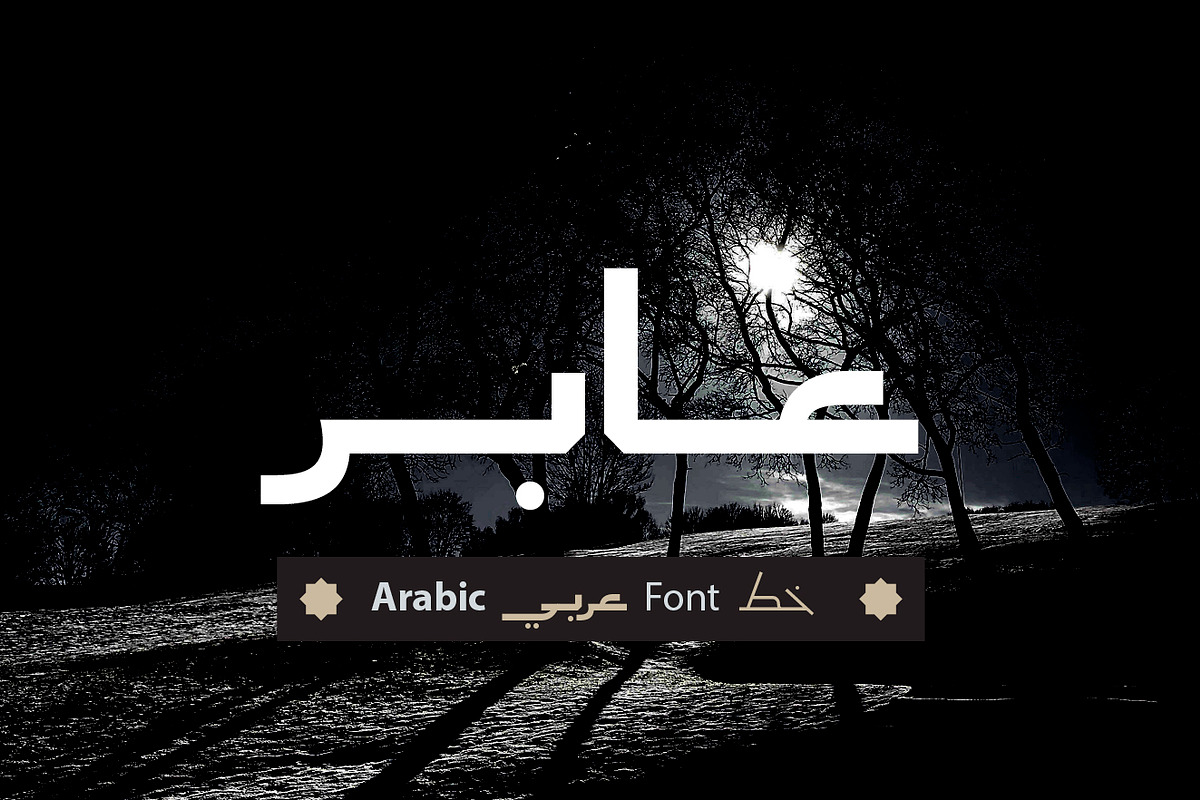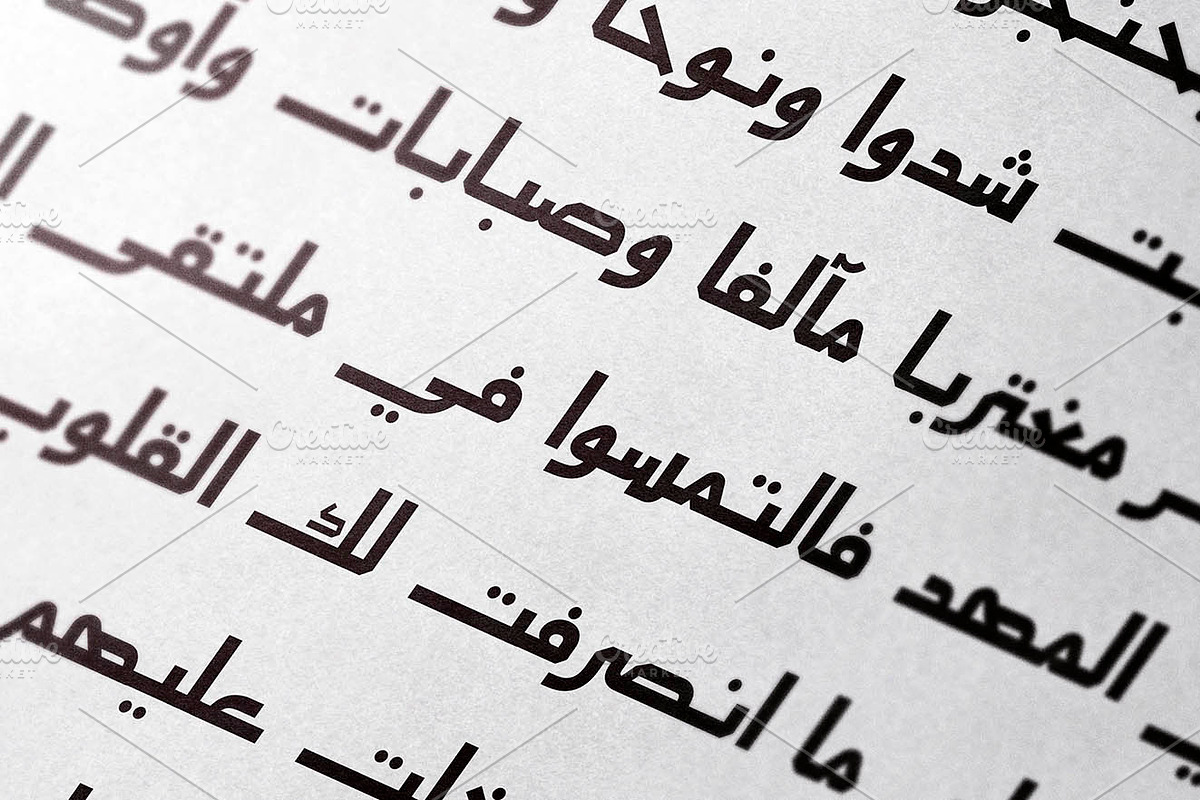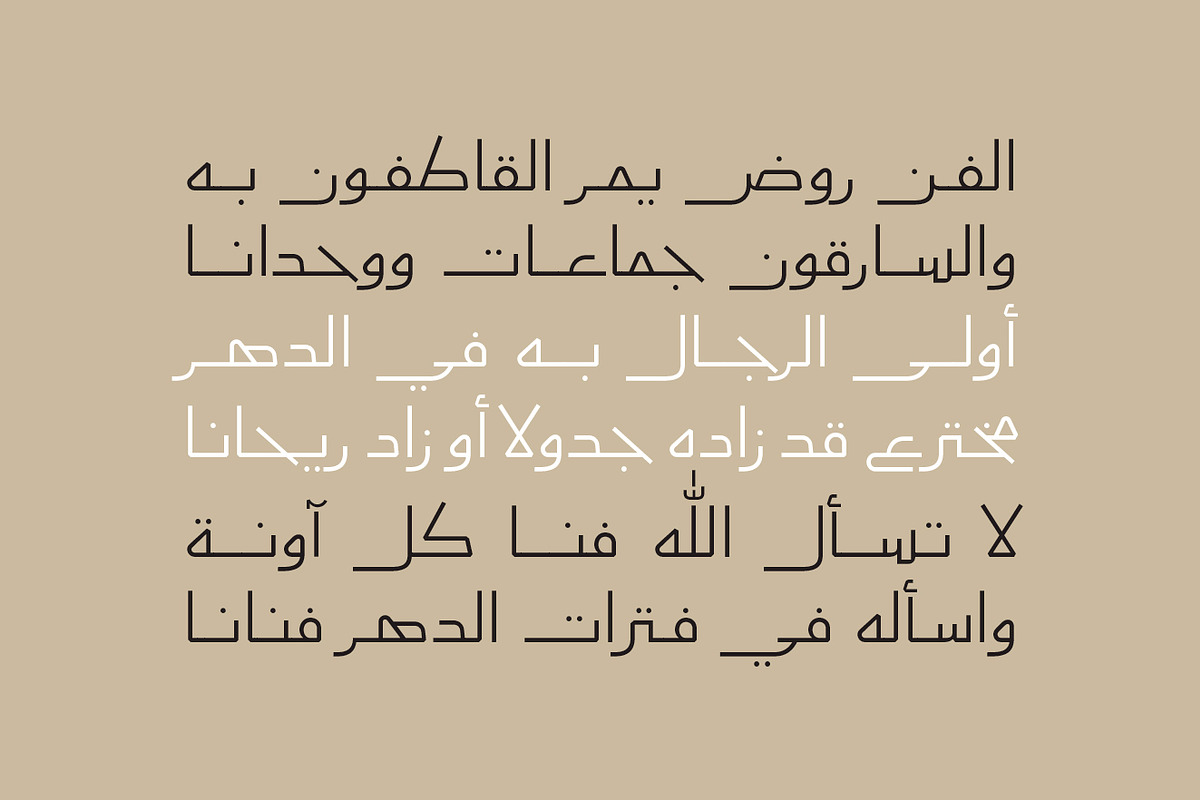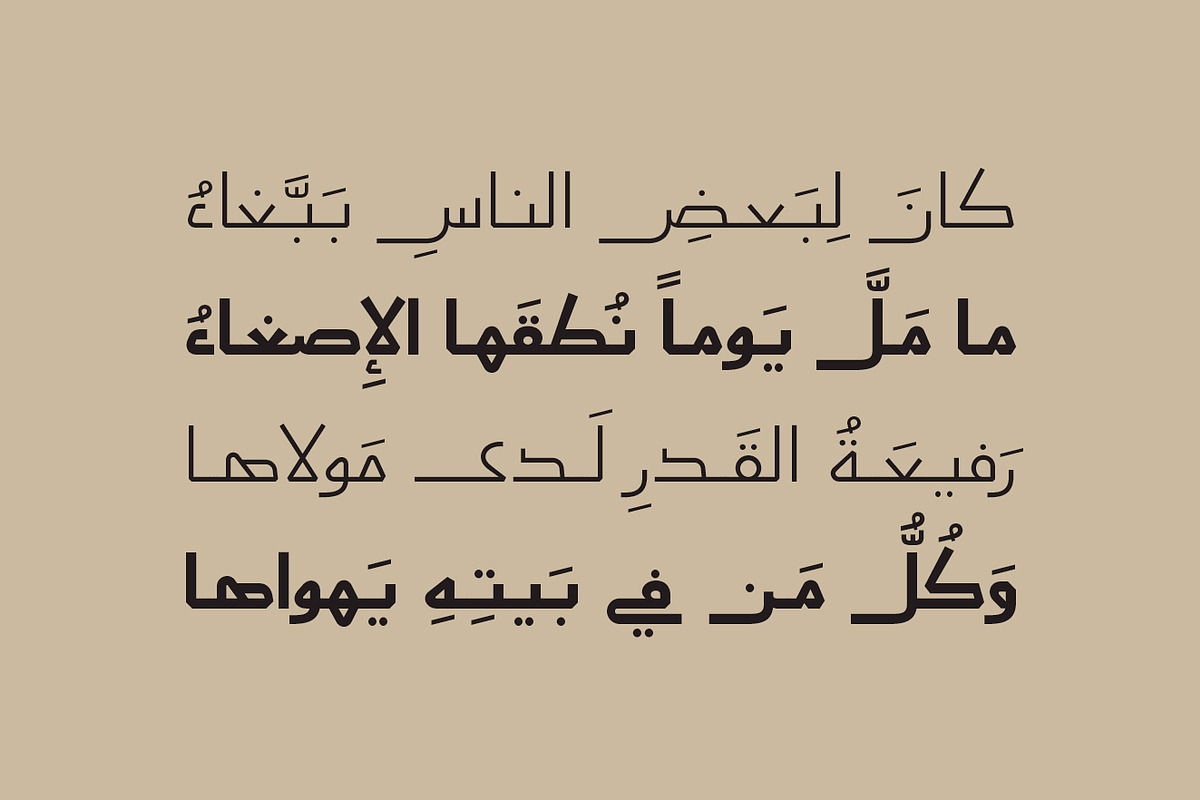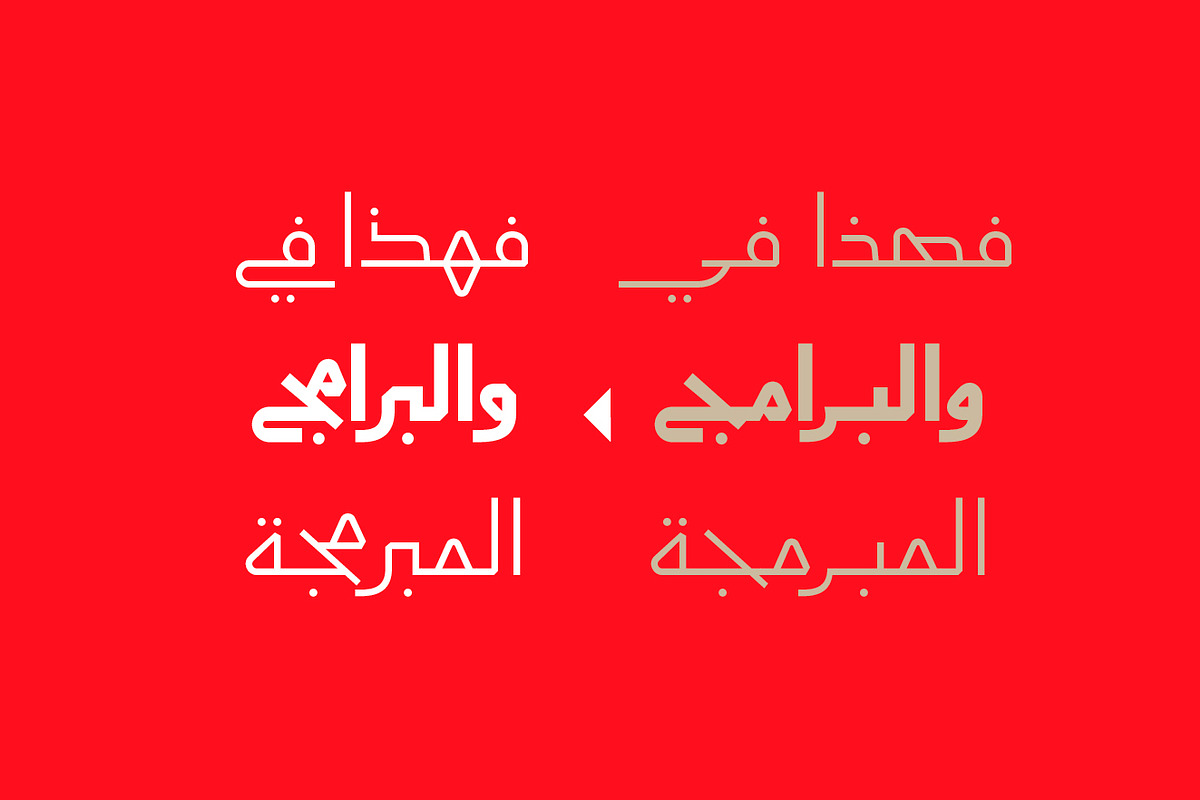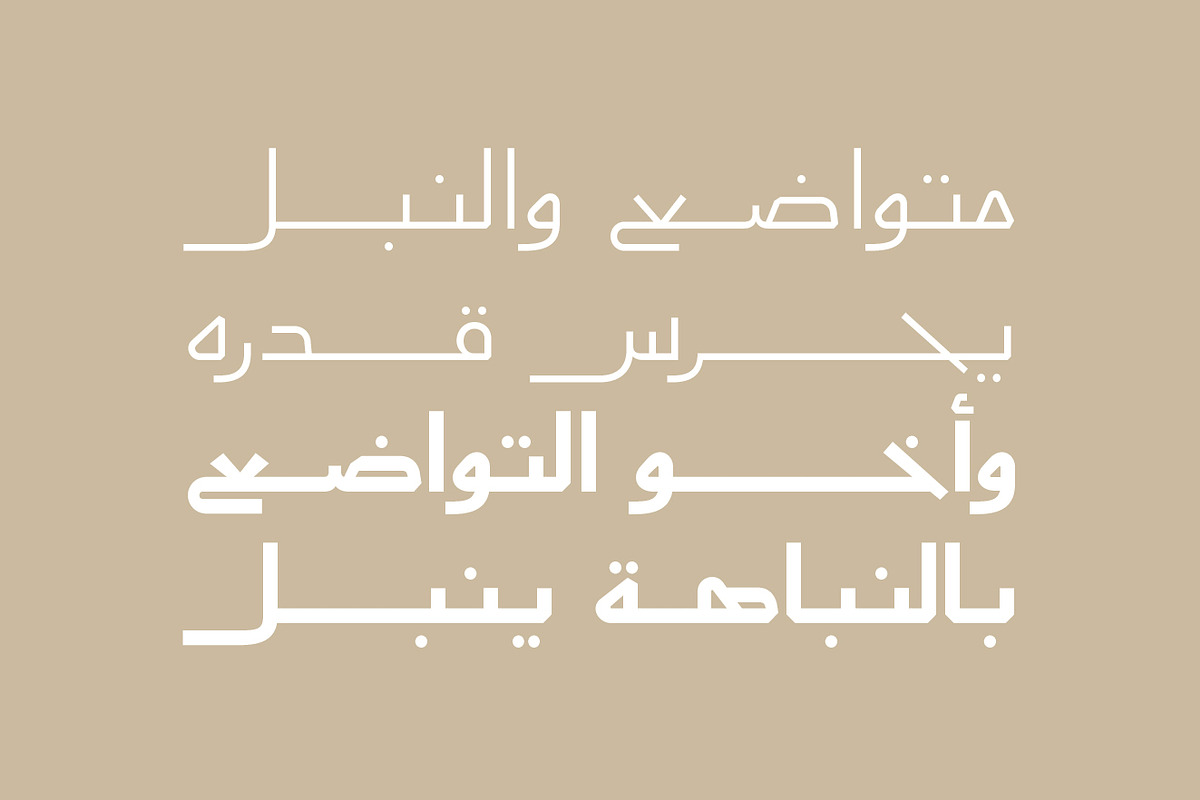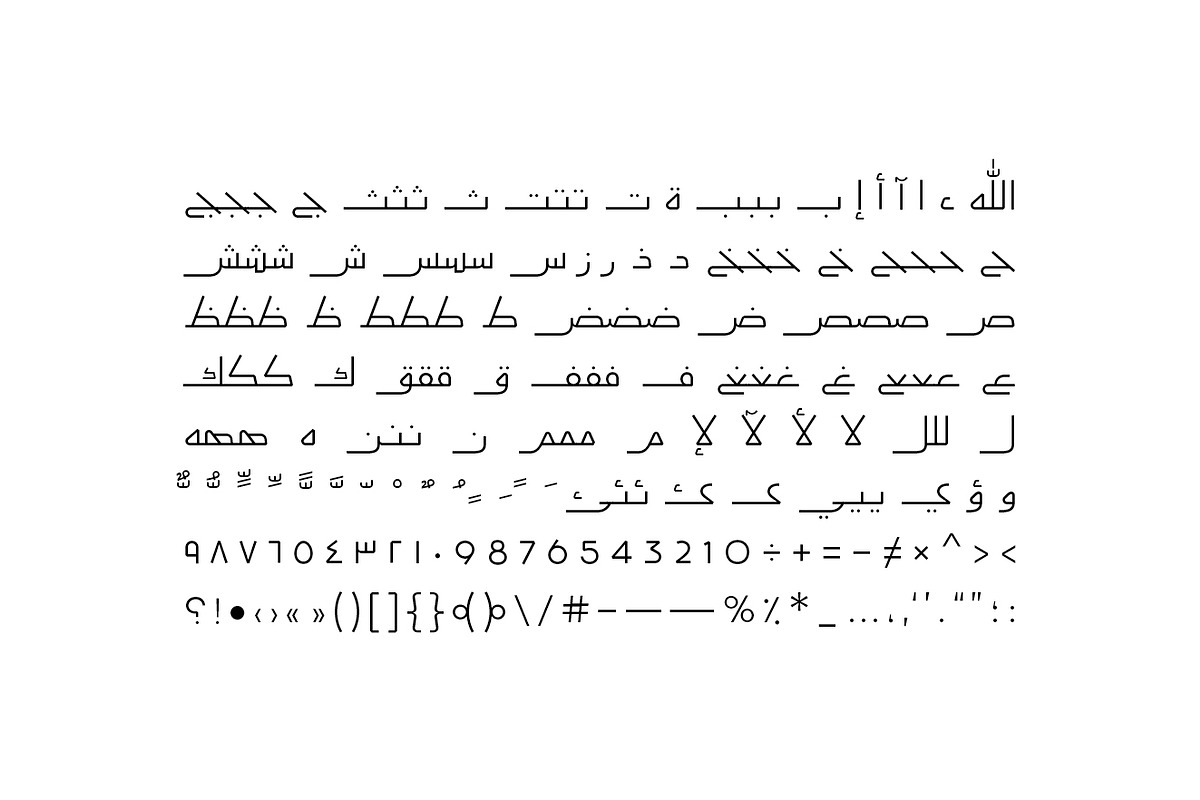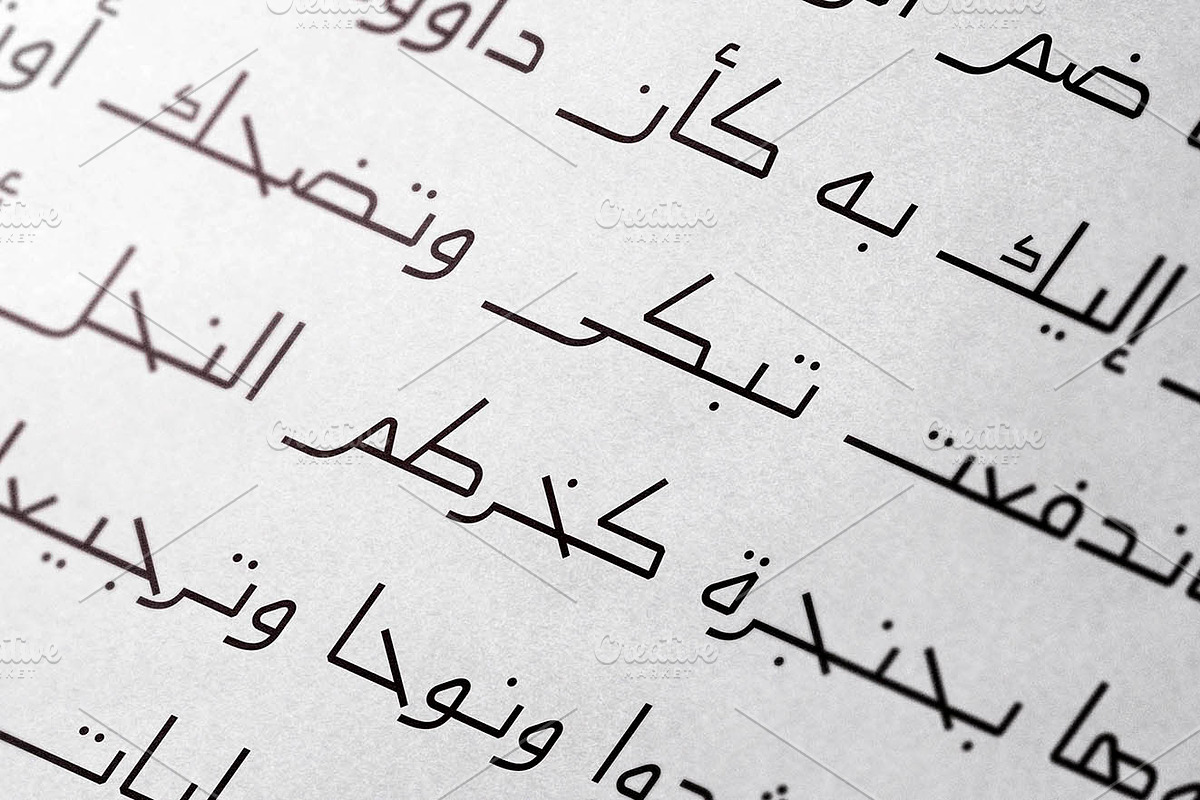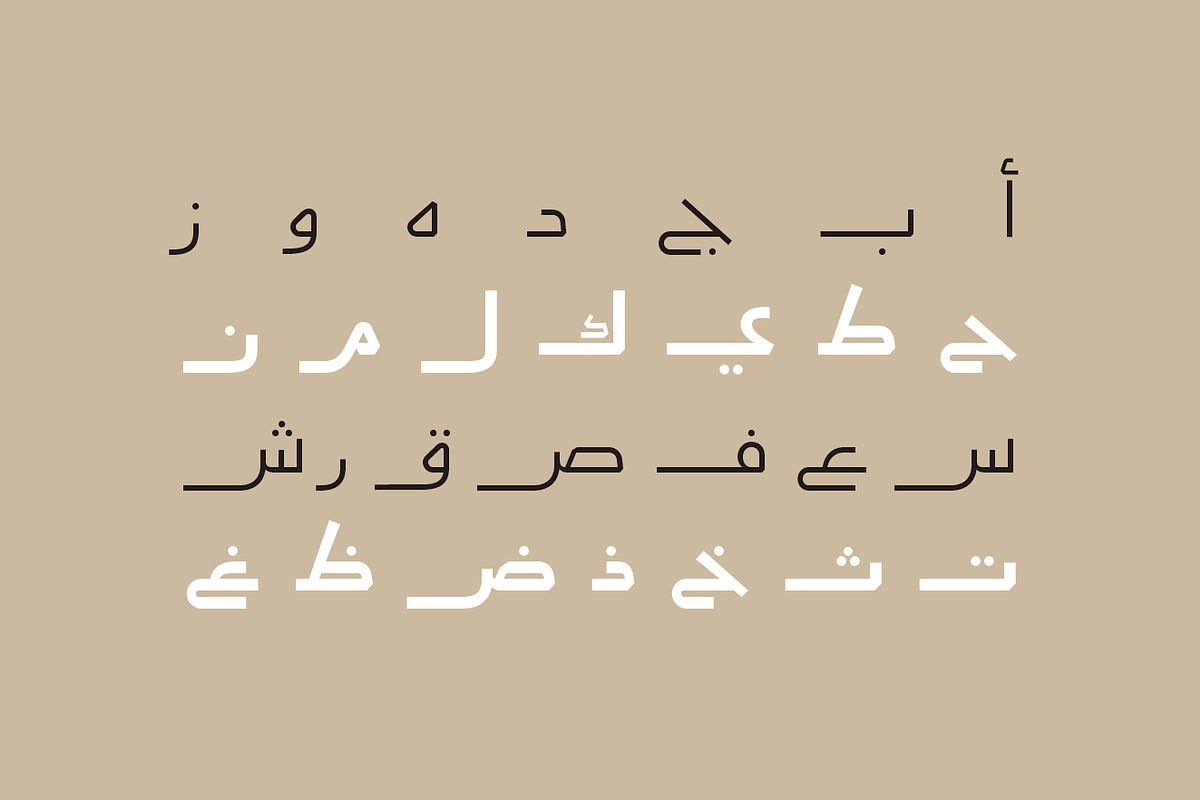
Aaber - Arabic Typeface
Aaber (from Aaber Sabeel, the Arabic for 'Wayfarer') is an Arabic display font that is inspired by some ancient engravings made by an unknown wayfarer on the ruins of Khalid al-Qasri's palace near Baghdad. Aaber typeface consists of two weights (Regular and Bold). The font's distinctive structure makes it suitable for all modern design projects including web, print and mobile applications.